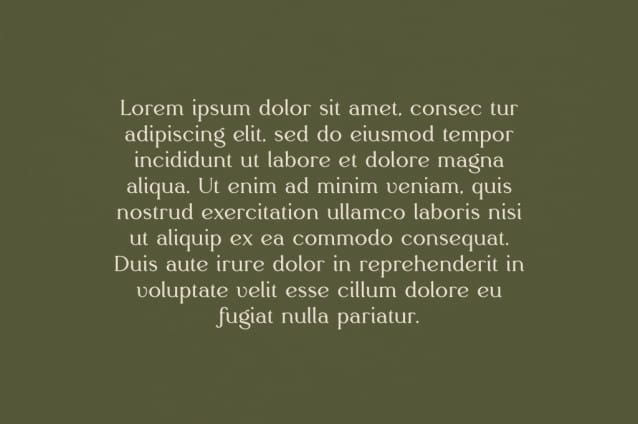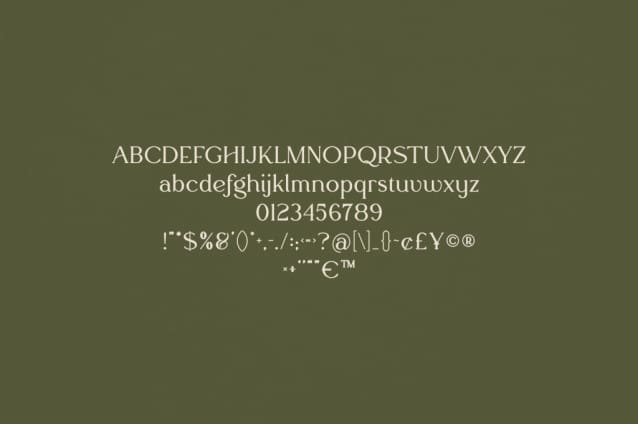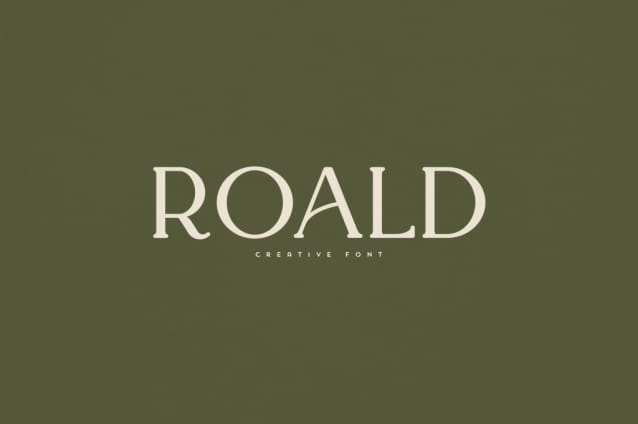
Roald Font
Roald Font is an elegant and versatile font that will make your typography truly unique! It will enchant every logo, branding, headline, or plain text!